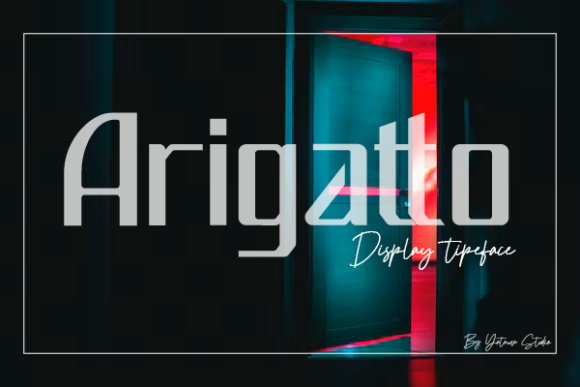
Dive into the world of typography with Arigatto Font, the cutting-edge display font that exudes elegance and sophistication.
Get ready to elevate your designs with Arigatto, a font that commands attention and captivates your audience. Each meticulously crafted letter exudes a futuristic charm, adding a touch of modernity to your projects.
With comprehensive glyph language support and standard punctuation, Arigatto is a versatile font that seamlessly adapts to any language or design style. Whether it's for web, media, or any venture that demands an avant-garde aesthetic, Arigatto effortlessly delivers.
Arigatto is not just a font; it's an experience that transports your designs into a realm of visual excellence. Its crisp, geometric lines and spacious letterforms create a sense of harmony and balance, making it the perfect choice for headlines, logos, posters, and branding.
Unlock the full potential of your creative vision with Arigatto, the font that pushes boundaries and sets your designs apart. Embrace the allure of the future and watch as your projects come to life with a newfound vibrancy and sophistication.